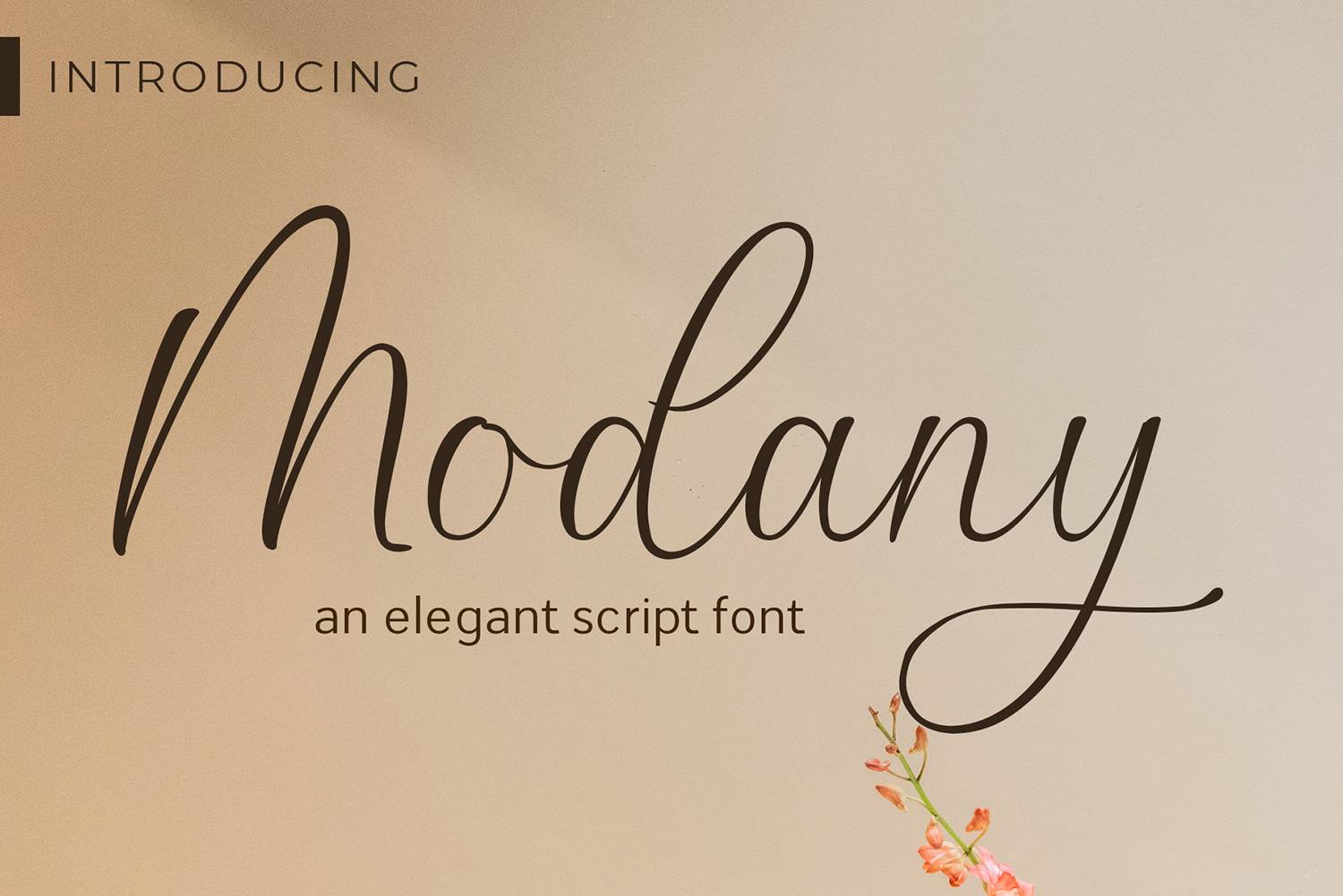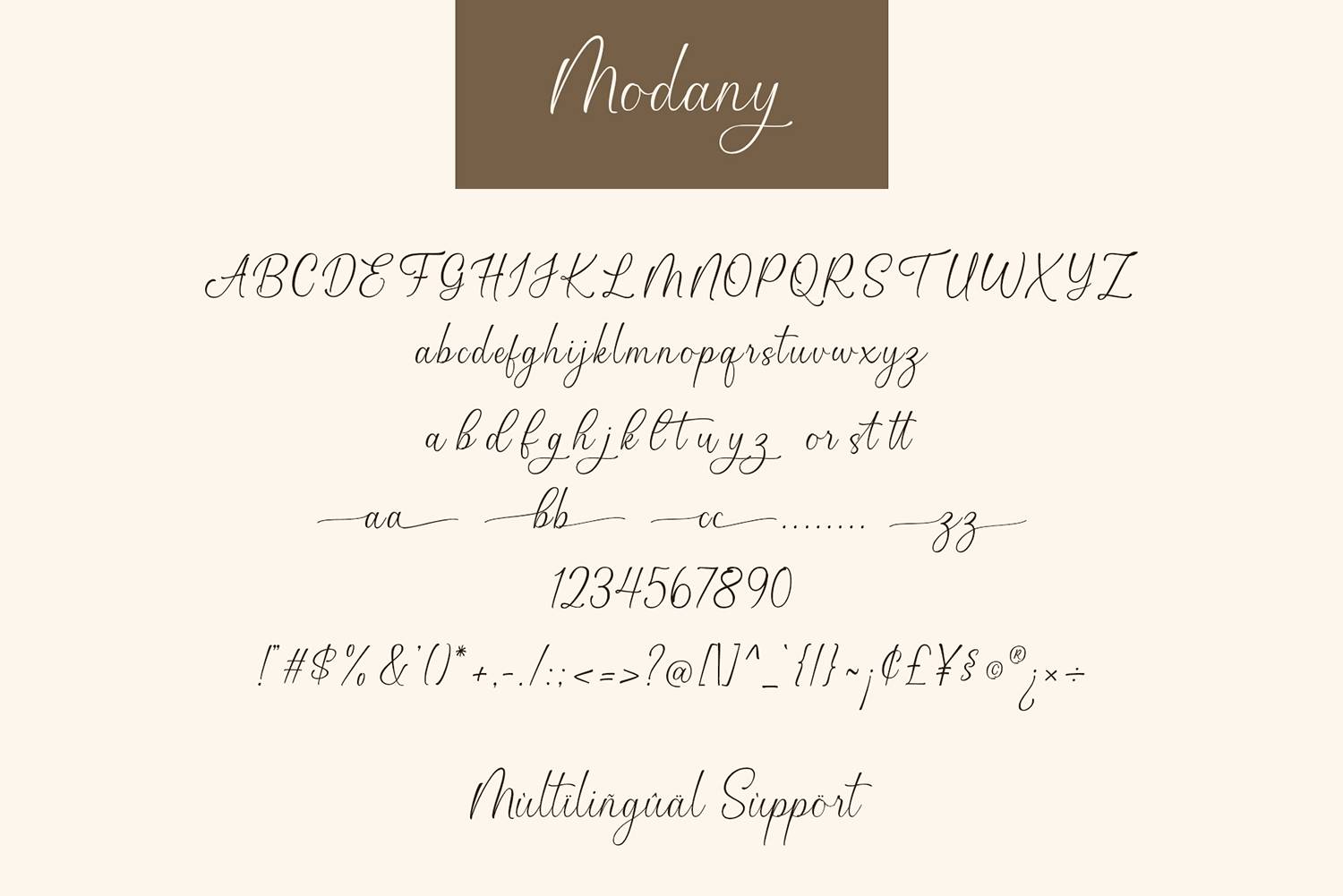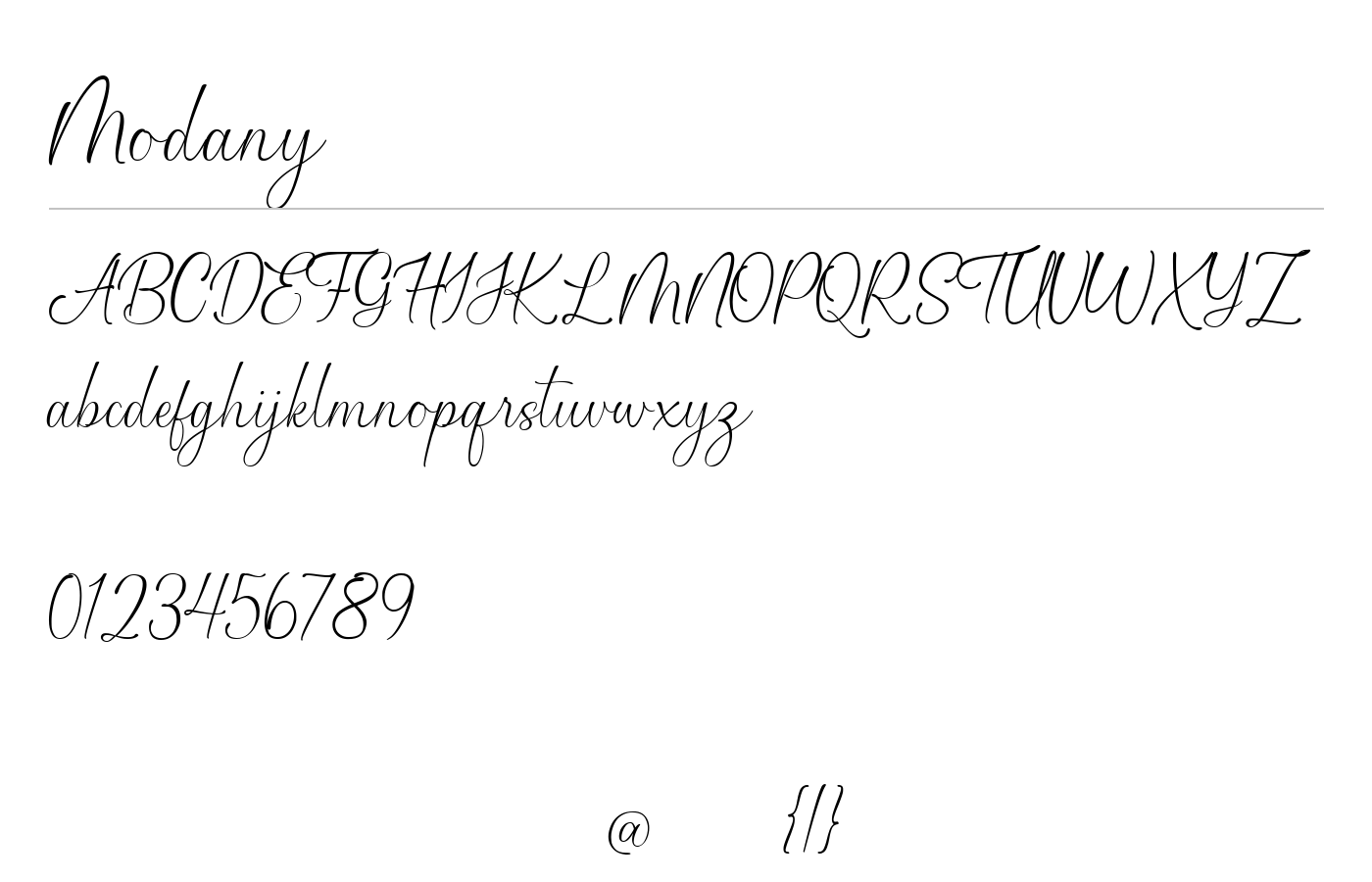
Modany is a delicate and elegant script font featuring thin, flowing strokes that give it a graceful and handwritten feel. Its tall, slender letterforms with subtle flourishes make it ideal for stylish branding, invitations, and sophisticated editorial design, where a refined and personal touch is desired. This font's light weight and clear legibility ensure it works beautifully in settings that call for a modern yet classic cursive look.
Modany Font
About Modany Font